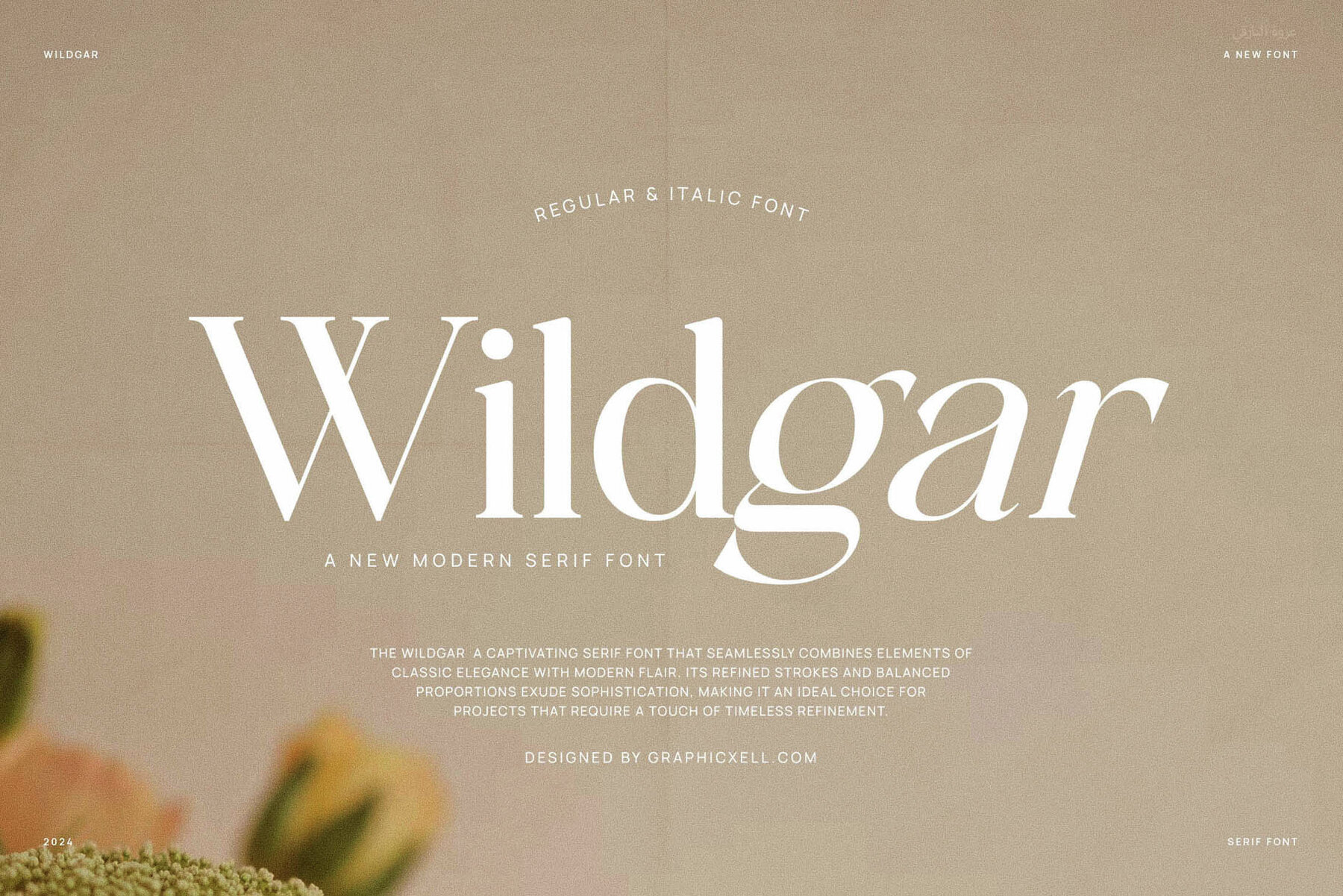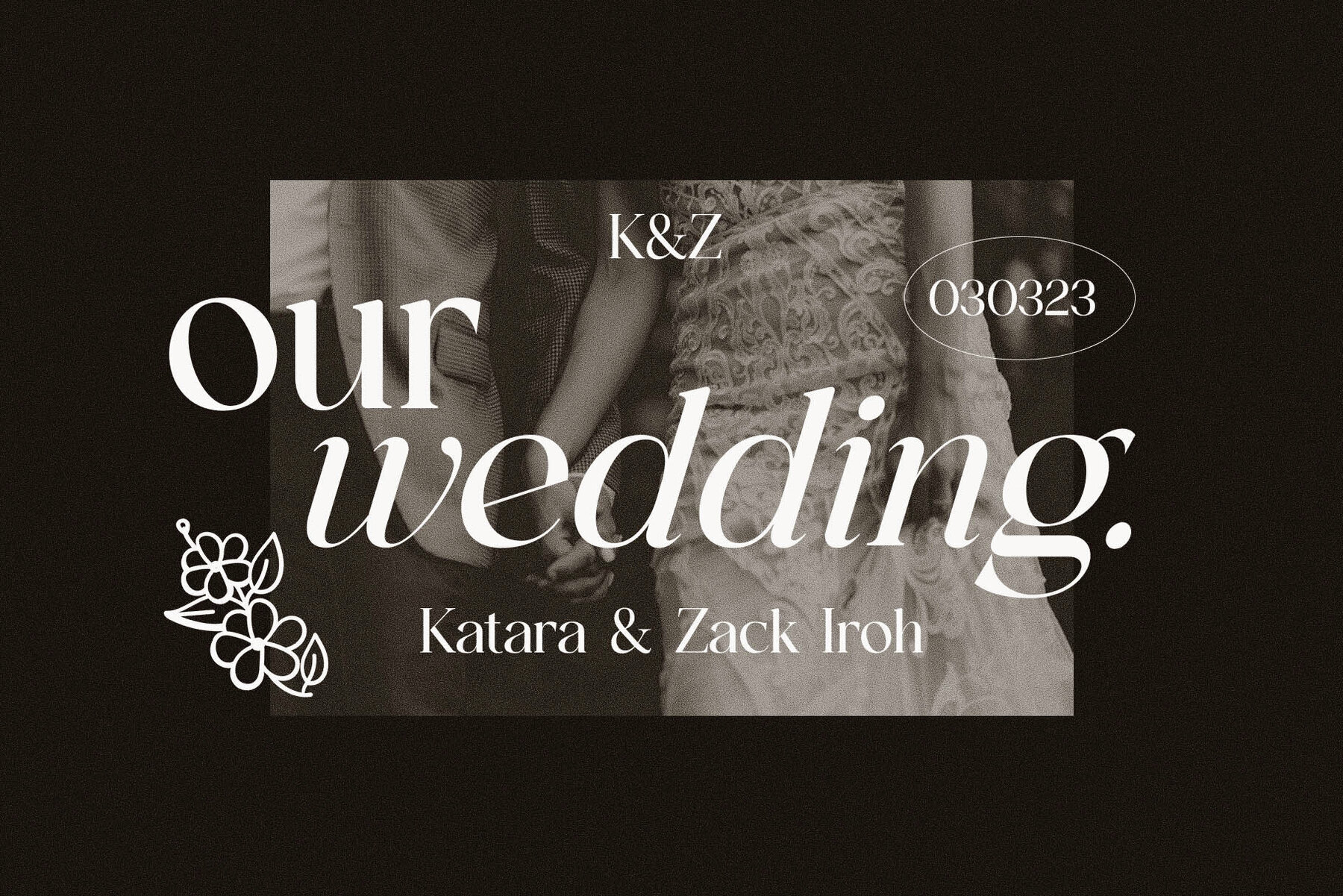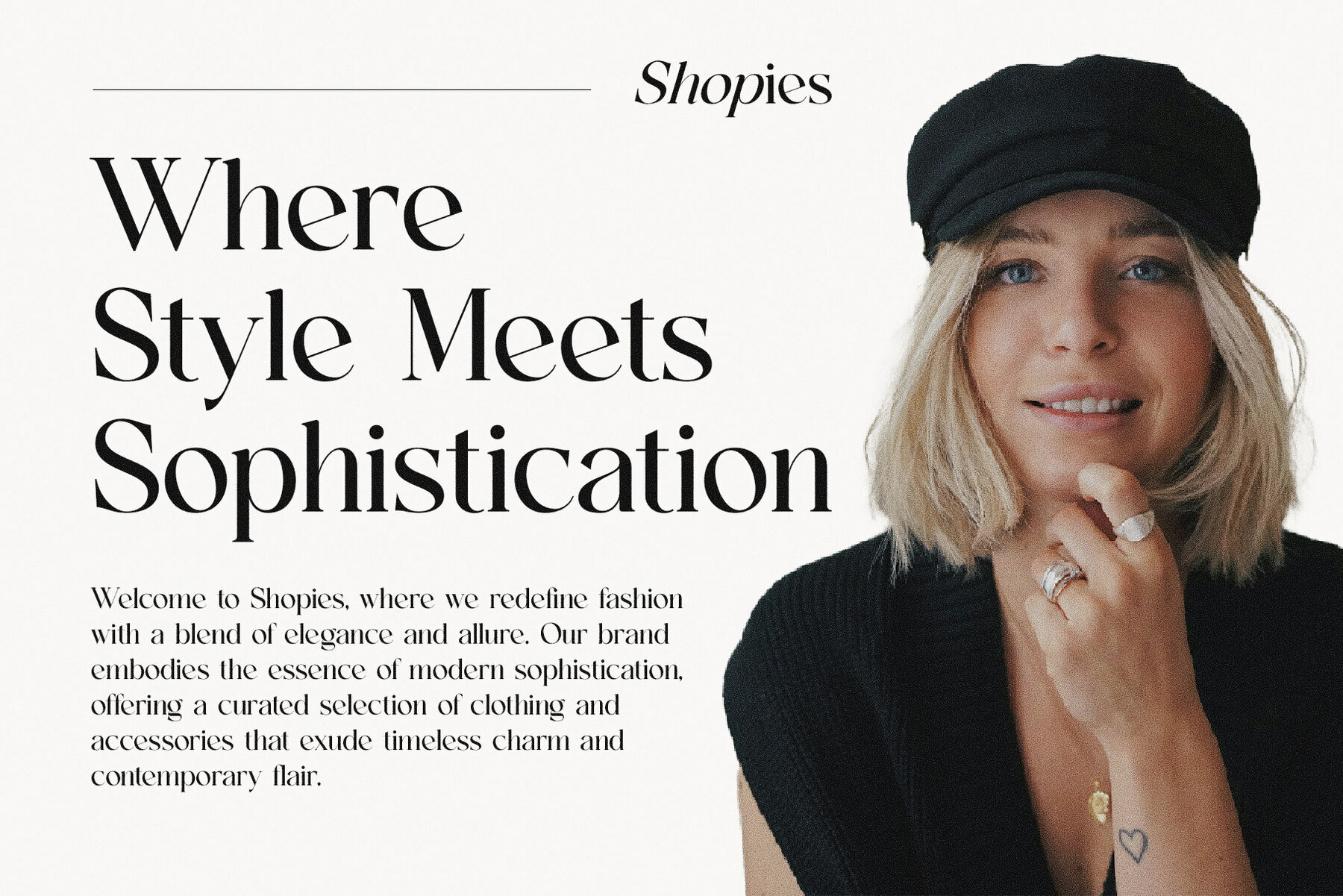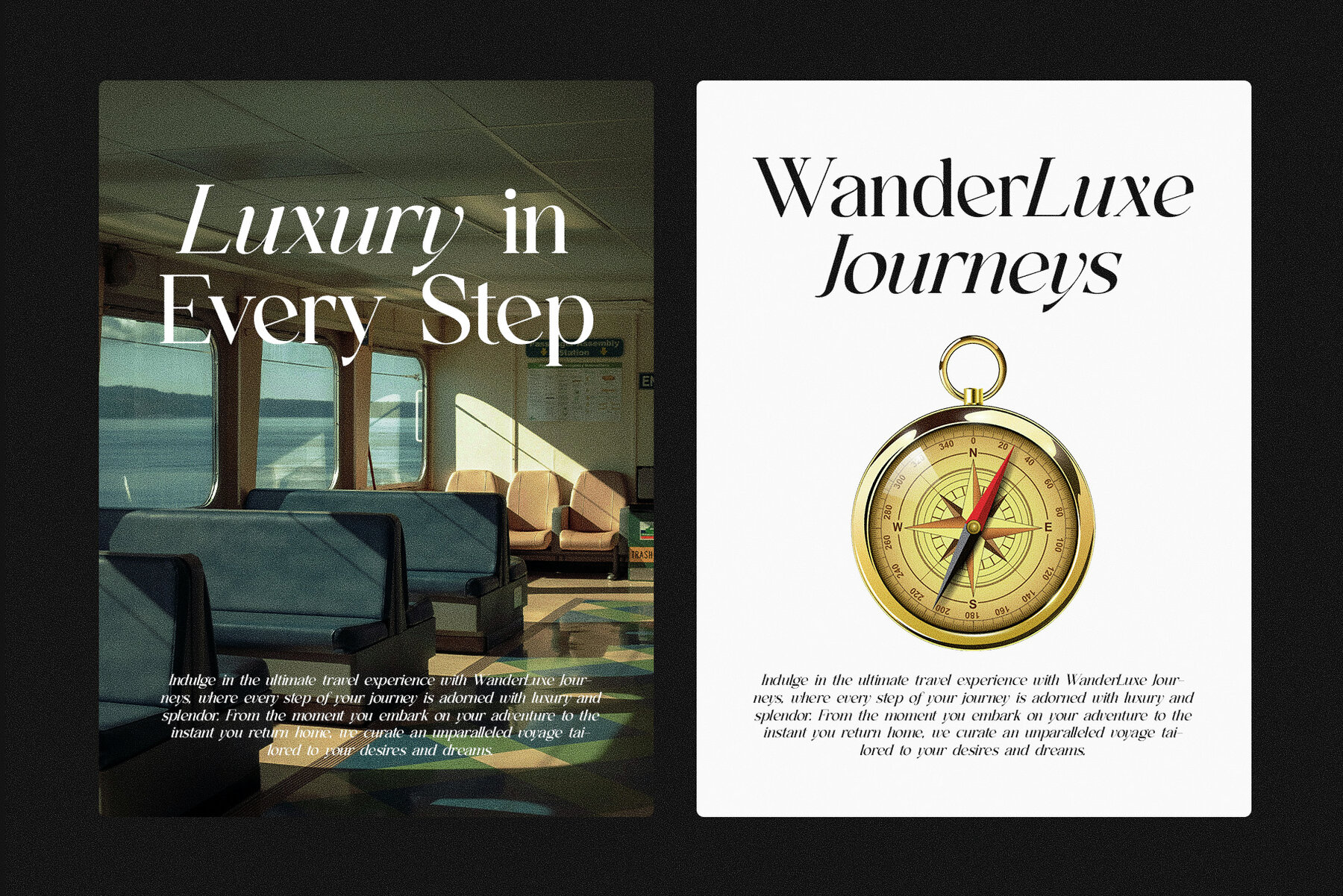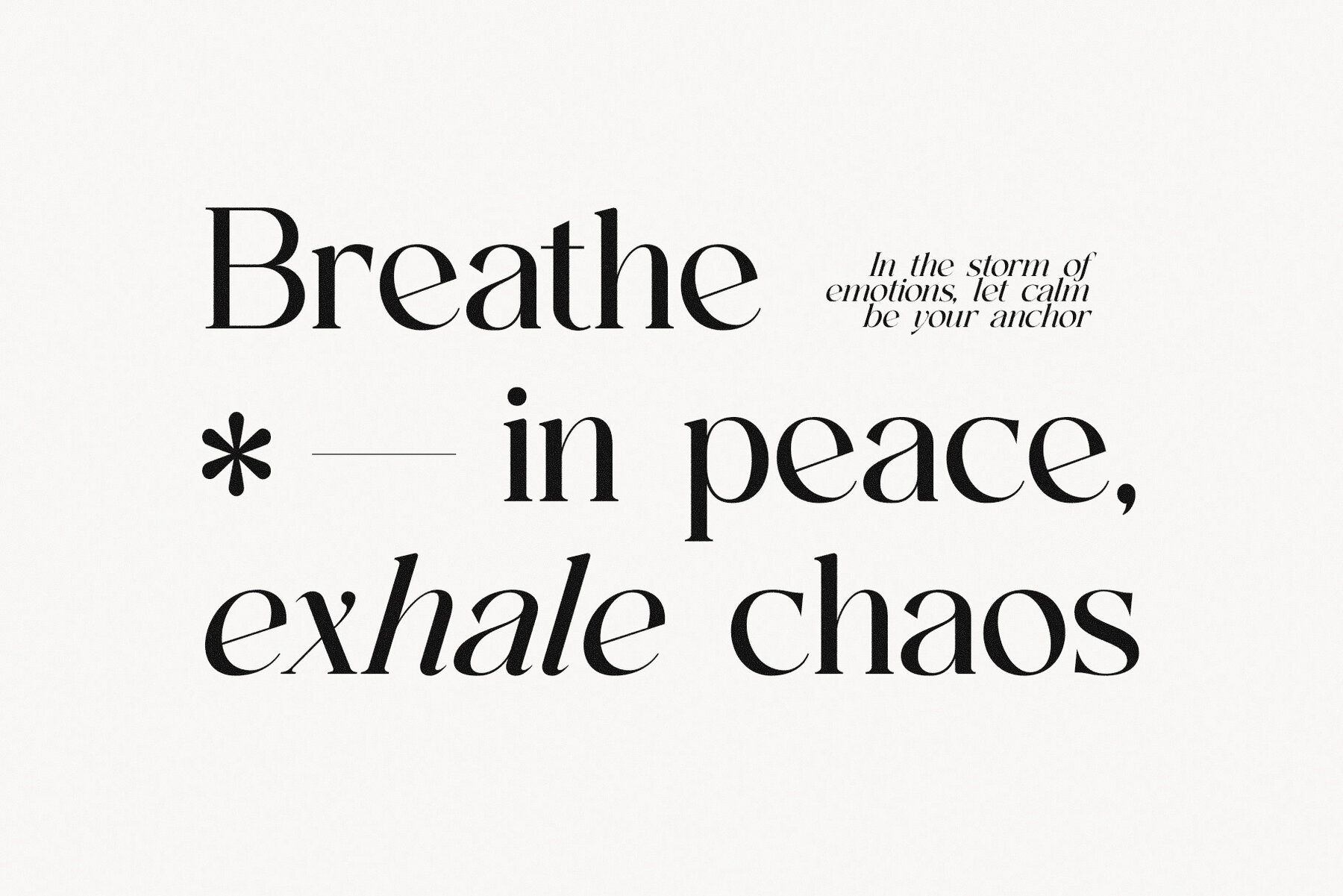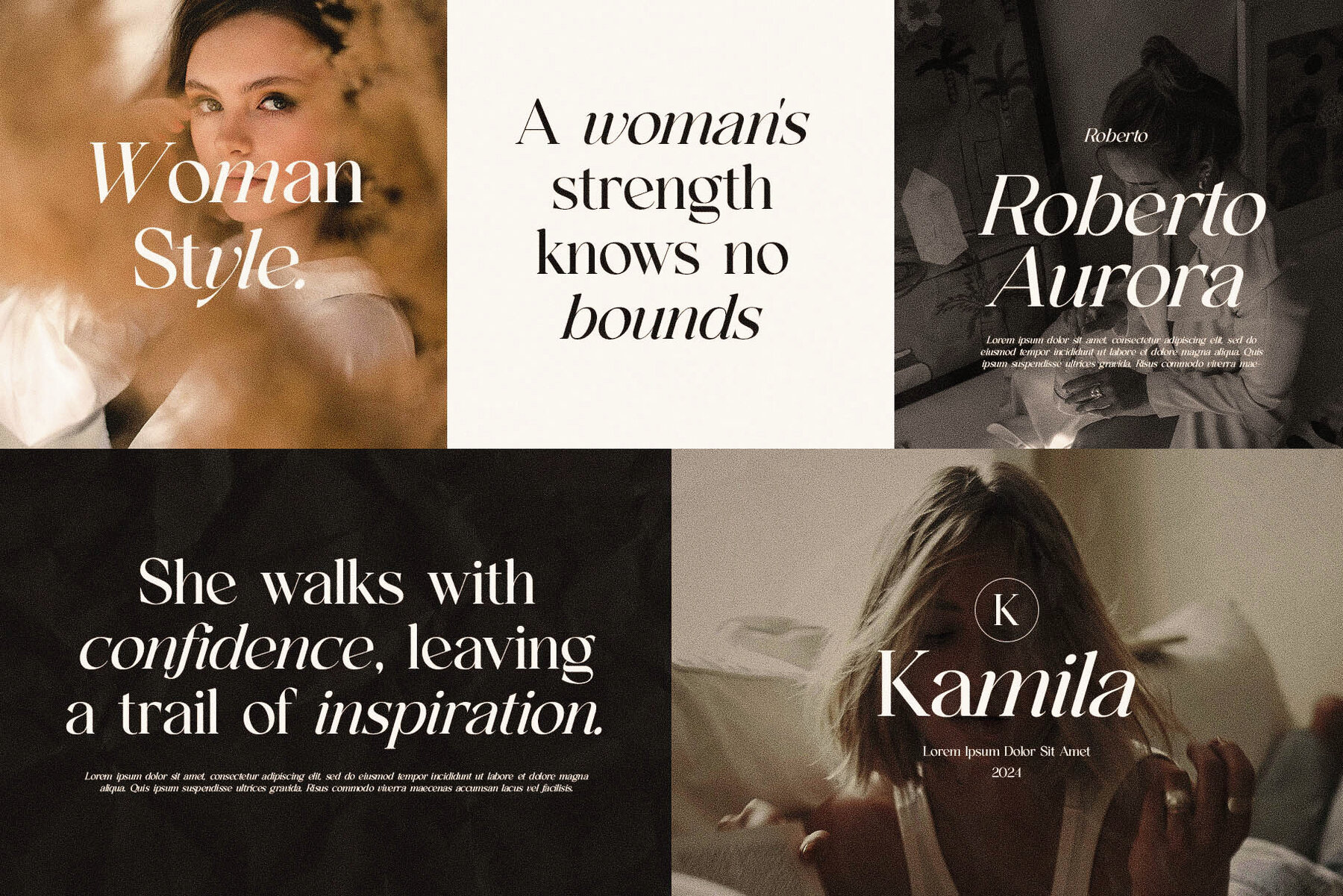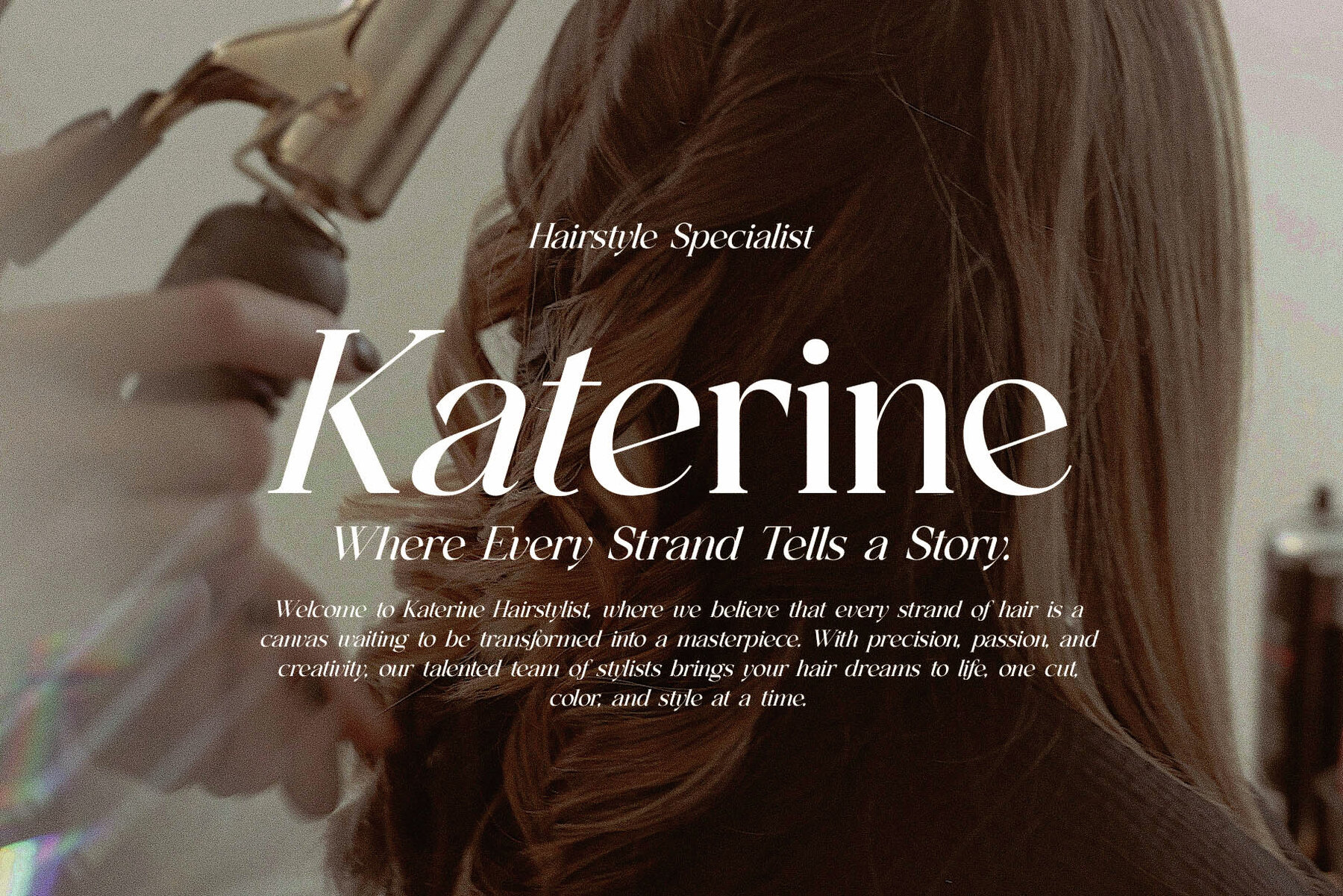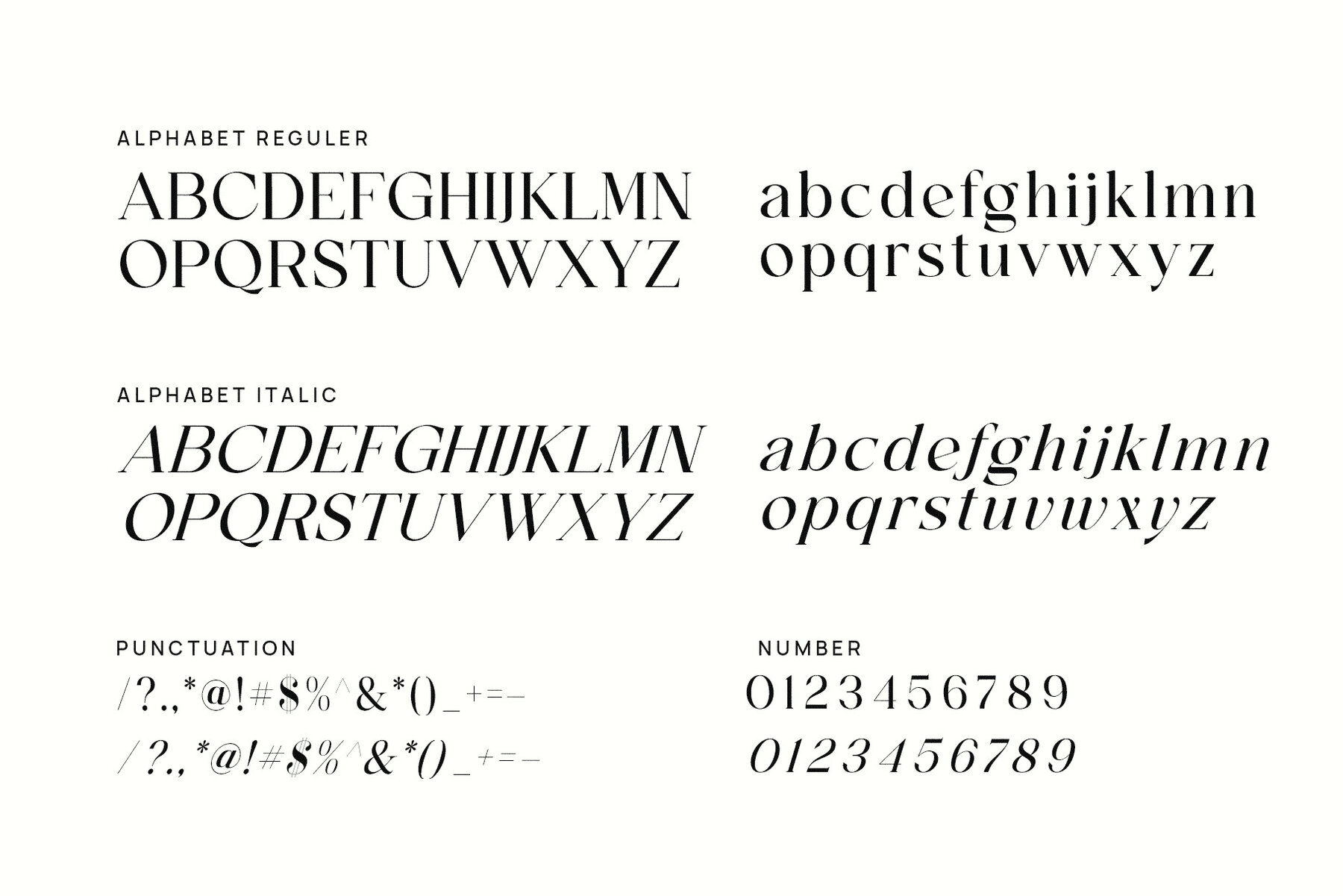
Wildgar Font
Wildgar is a chic serif font that blends classic elegance with modern style. Its delicate strokes and refined letterforms make it ideal for various projects. The regular version exudes a classical touch for a stylish and sophisticated look, while the italic version adds an ancient, timeless feel.
Perfect for wedding invitations, branding, fashion websites, logos, and product packaging, Wildgar brings a casual yet luxurious and modern elegance to any design. It includes regular and italic styles, character standards, numerals, punctuation, and accented characters for West European languages. Compatible with PC and Mac, it's recommended for use in Adobe Illustrator or Photoshop.